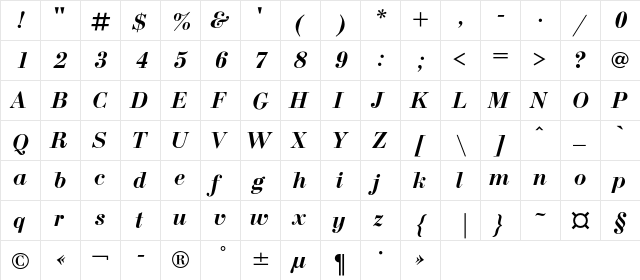
BodoniC Bold Italic
Design Context for BodoniC Typeface
BodoniC is a composed and adaptable typeface that performs quietly and consistently across a wide range of design contexts. The dynamic lean of this cut emphasises speed and emphasis in any layout. Its bold stroke weight gives it real presence on the page.
Pro Tip: Use BodoniC for emphasis, pull quotes, and subheadings where its slanted energy can add rhythm to the layout.